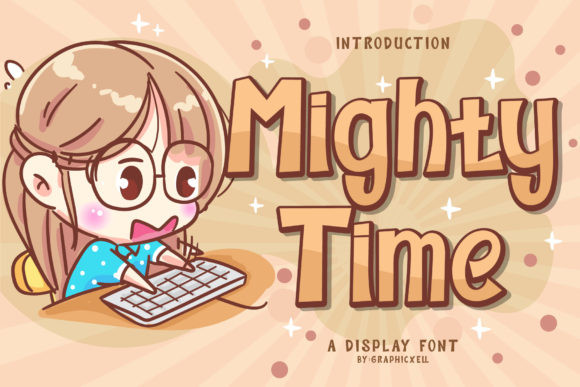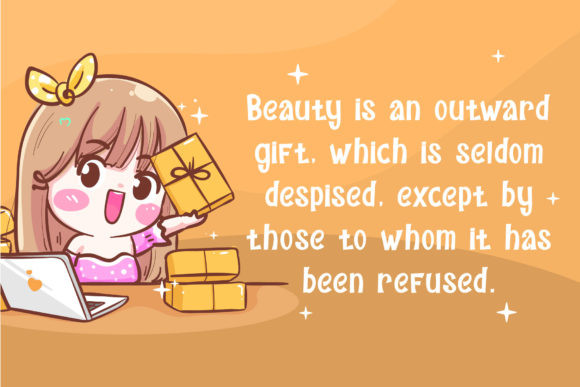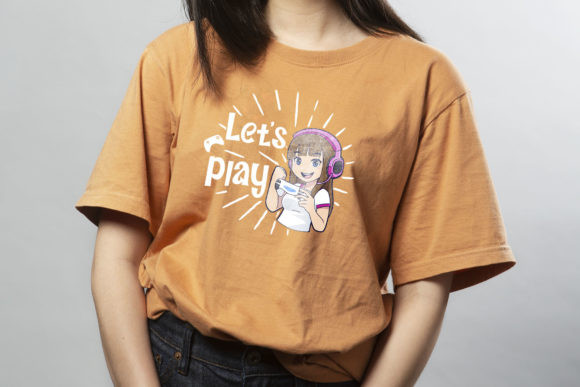
Mighty Time Font
Mighty Time is a cute and quirky display font. It will add an incredibly joyful touch to your designs. Add this beautiful display font to each of your creative ideas and notice how it makes them stand out!